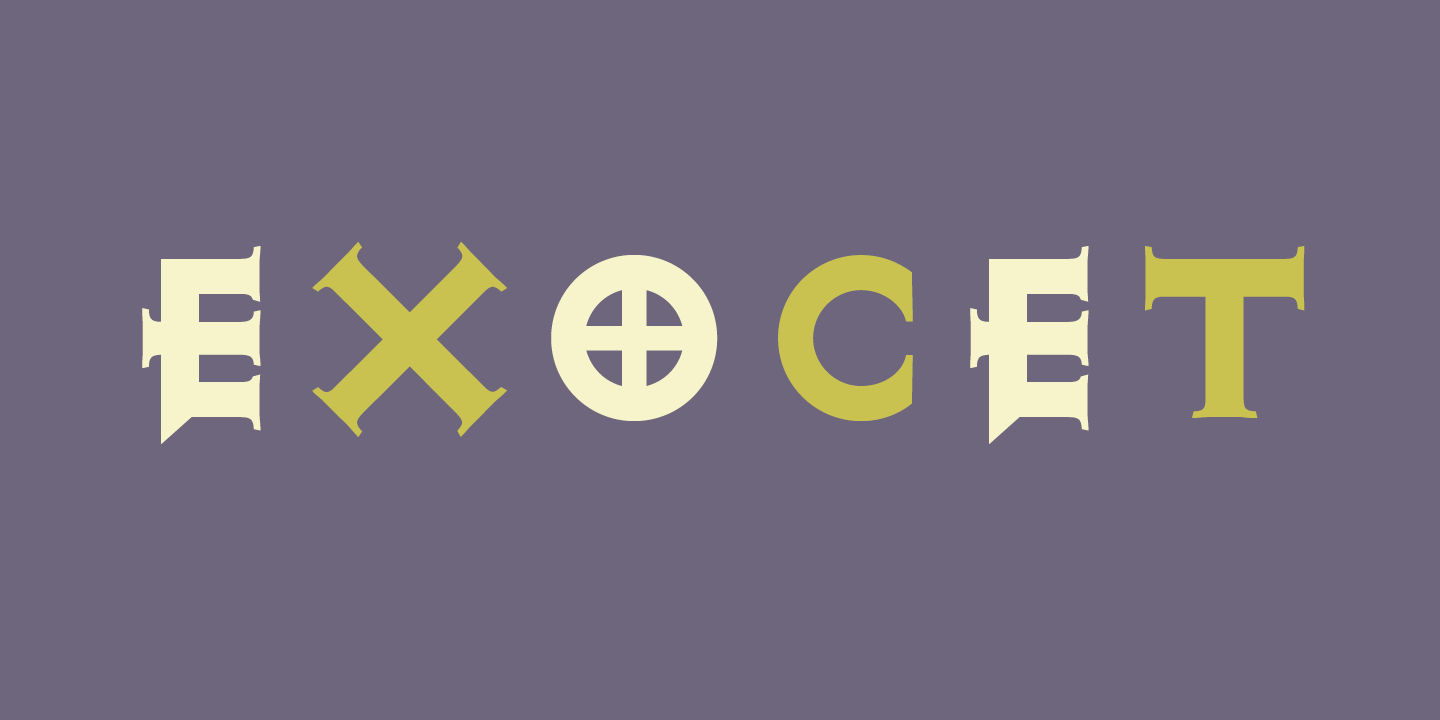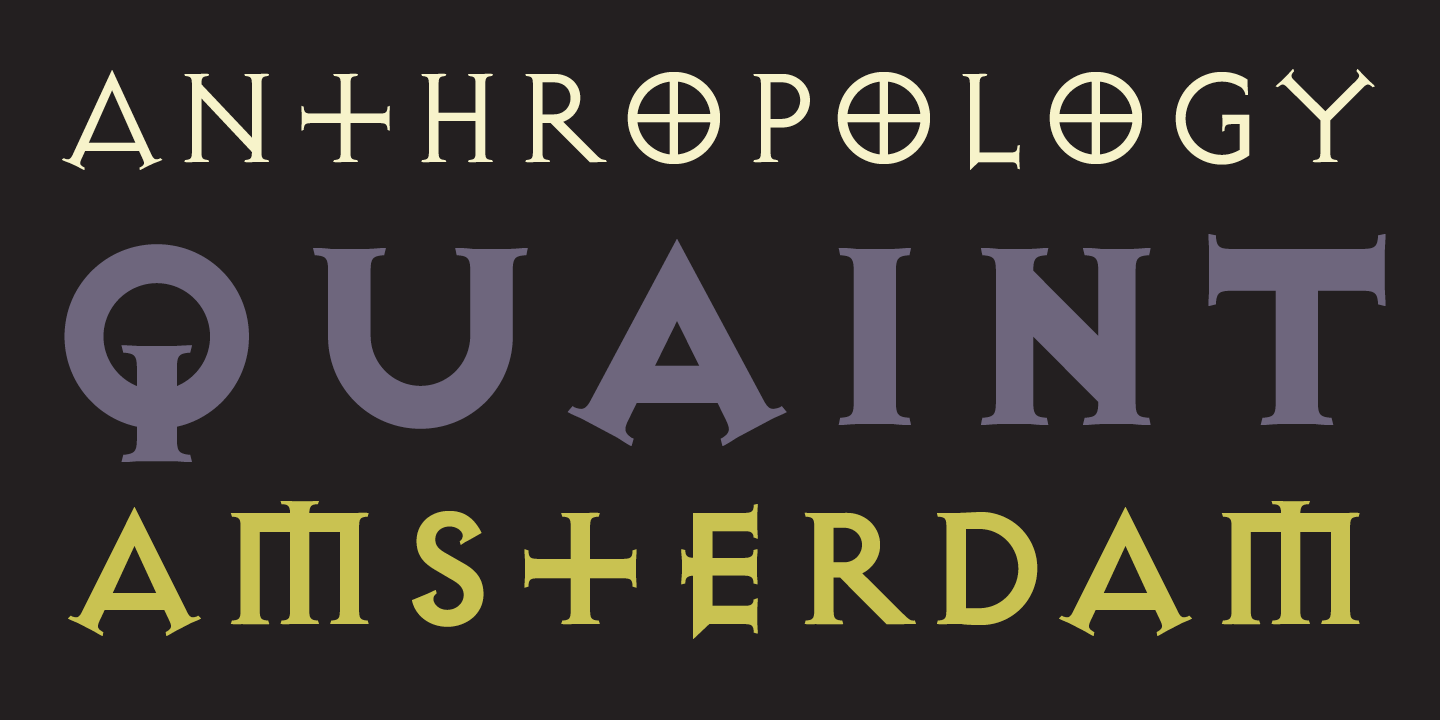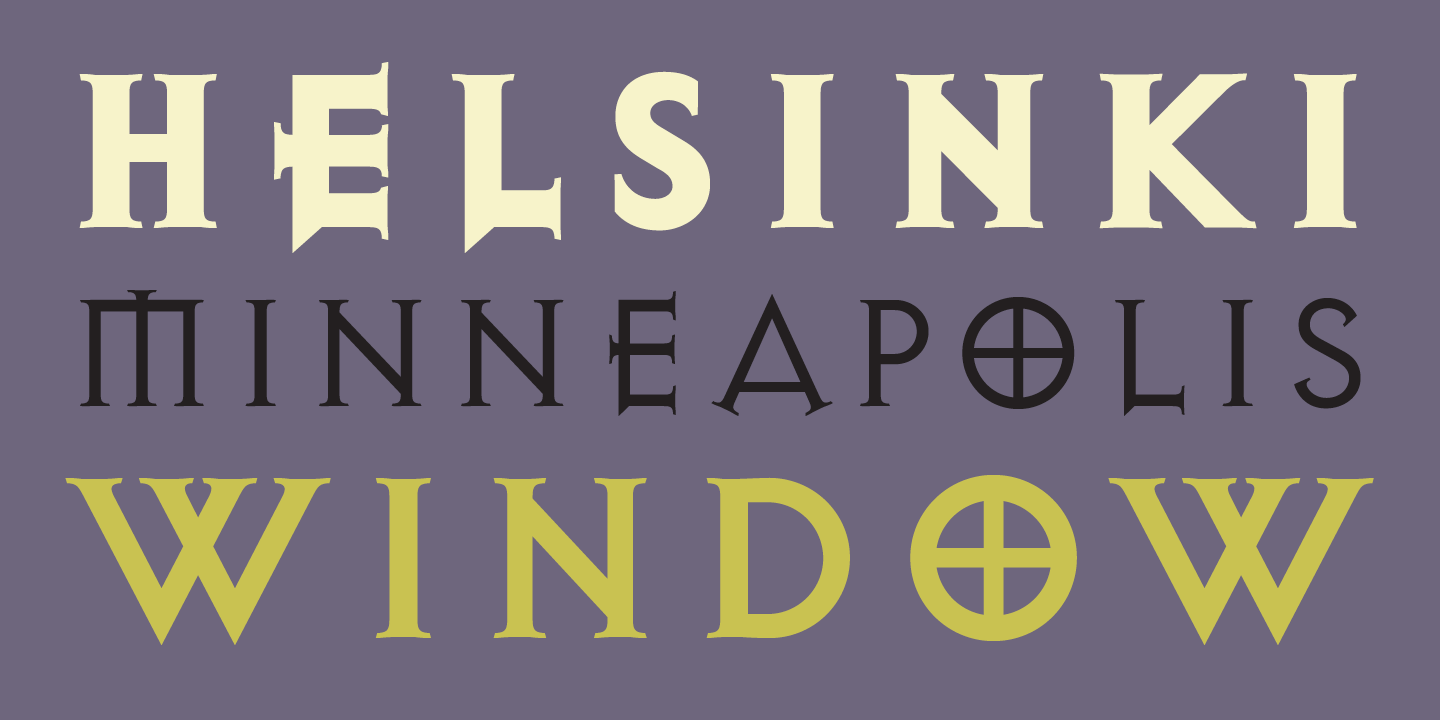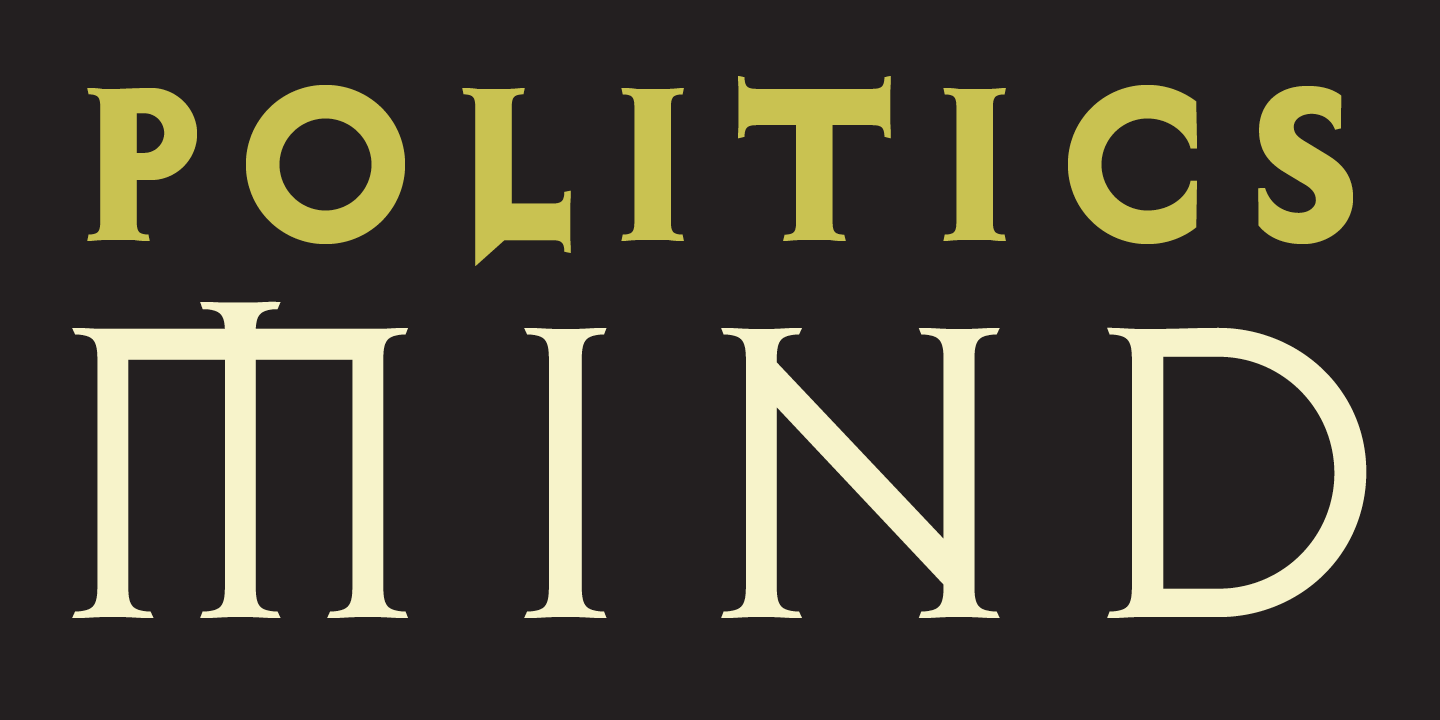
Originally designed for the European annual Illustration Now, Exocet is based on primitive Greek stone carving.
Barnbrook has pointed out that he never really understood the idea of serif type until he experienced drawing it. There are various theories as to how serifs came about. One attributes it to the pull of the brush at the end of the letter, another explains that creating a nice sharp ending at the end of a stem when carving in stone resulted in the idea of serifs. So he decided to try both methods. Working with the brush was useful for seeing exactly how the quirks of a typeface come about. Stone carving he found a much more enlightening experience, for various reasons. It is entirely different from designing type on the Macintosh which is non-physical and the results are impermanent. Stone carving, on the other hand, involves a real physical effort, and Barnbrook felt like he was leaving his marks forever. It was this early encounter with stone carving that greatly influenced the look of Exocet.